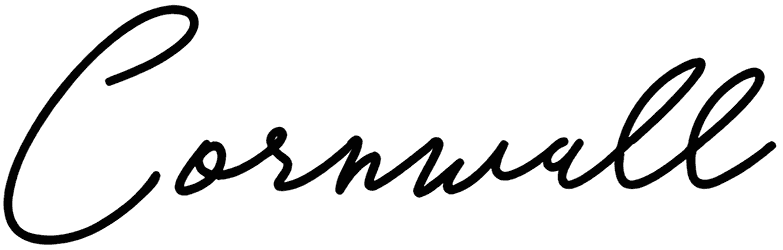
Cornwall Font
It’s hard to beat Cornwall regarding attractiveness and organicity, and it can look pretty sweet among its competitors. This handwritten font is attractive enough to make your monitor space look exciting and create a comfortable atmosphere for viewers.
But because of the continuous connections, it won’t be easy to read and will require concentration. Where this font script stands out can be on wedding cards, friendly invitations, book covers, or music albums.